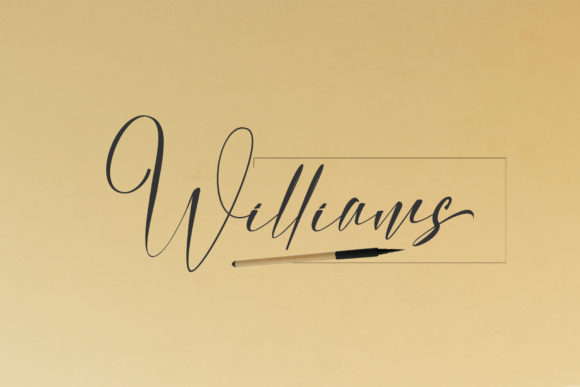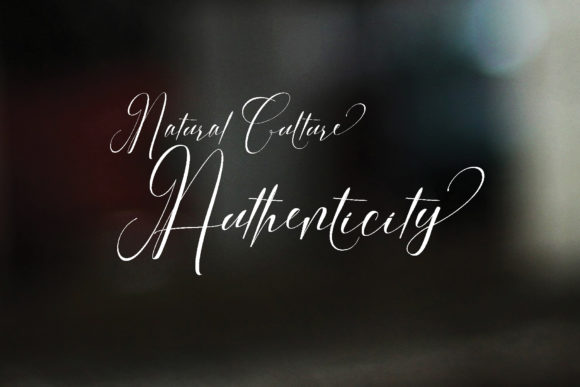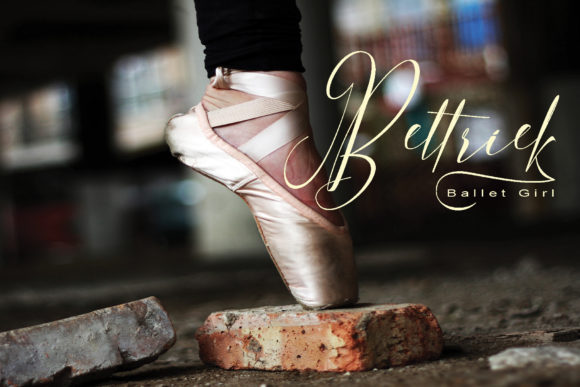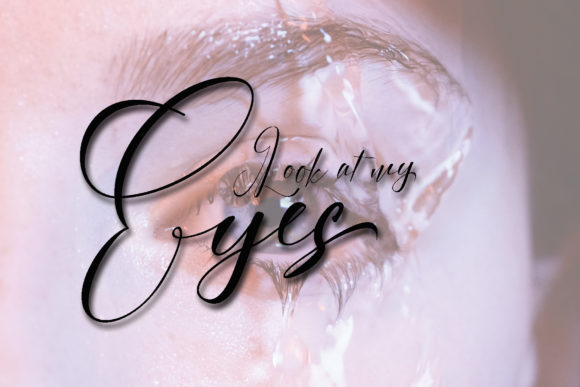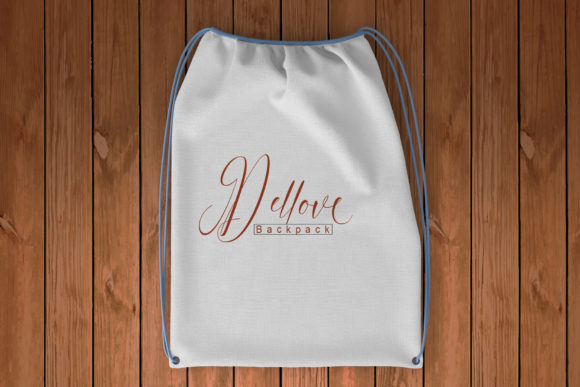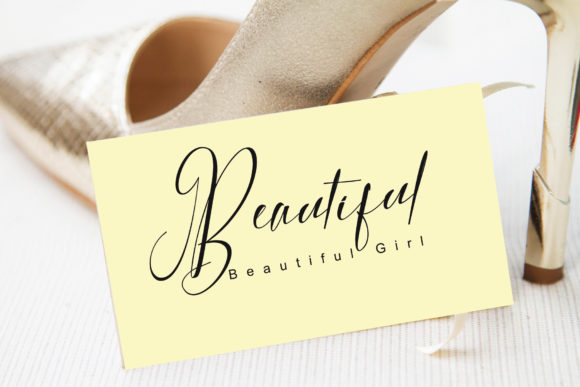
Fellisetta Font: Elevate Your Designs with a Soft and Modern Script
Fellisetta is a stunning script font that has been making waves in the design community with its undeniably modern appearance. This beautiful font is perfect for designers and crafters looking to add a touch of elegance and sophistication to their projects. In this article, we’ll dive into the world of Fellisetta Font, exploring its unique features, and what makes it an ideal choice for a wide range of design applications.
The Unique Style of Fellisetta Font
Fellisetta Font boasts a soft and beautiful script style that is both visually appealing and highly versatile. Its modern appearance is characterized by flowing lines, gentle curves, and a subtle sense of movement. This font is perfect for creating designs that require a touch of personality, elegance, and whimsy. Whether you’re working on a branding project, packaging design, or a digital product, Fellisetta Font is sure to inspire your creativity.
Key Features of Fellisetta Font
- Soft and Beautiful Script: Fellisetta Font features a smooth, cursive script that is easy on the eyes and perfect for creating beautiful text-based designs.
- Modern Appearance: This font’s modern style makes it ideal for designs that require a fresh and contemporary look.
- Highly Versatile: Fellisetta Font can be used for a wide range of design applications, from branding and packaging to digital products and more.
- Elegant and Whimsical: This font’s unique blend of elegance and playfulness makes it perfect for designs that require a touch of personality.
Design Applications for Fellisetta Font
- Branding and Logo Design: Use Fellisetta Font to create stunning brand identities that exude elegance and sophistication.
- Packaging Design: Add a touch of personality to your packaging designs with this beautiful script font.
- Digital Products: Use Fellisetta Font to create visually appealing digital products, such as ebooks, workbooks, and more.
- Stationery and Invitations: Create beautiful stationery and invitations with Fellisetta Font that are sure to impress.
Tips for Using Fellisetta Font
- Pair with Bold Fonts: Pair Fellisetta Font with bold fonts to create a striking contrast that adds visual interest to your designs.
- Experiment with Colors: Don’t be afraid to experiment with different colors and textures to add depth and personality to your designs.
- Use for Headings and Titles: Use Fellisetta Font for headings and titles to add a touch of elegance and sophistication to your designs.
Fellisetta Font is a stunning script font that is sure to inspire your creativity and elevate your designs. With its soft and beautiful script, modern appearance, and high versatility, this font is perfect for designers and crafters looking to add a touch of elegance and sophistication to their projects. Whether you’re working on a branding project, packaging design, or digital product, Fellisetta Font is an excellent choice. So why wait? Get inspired by Fellisetta Font today and take your designs to the next level!